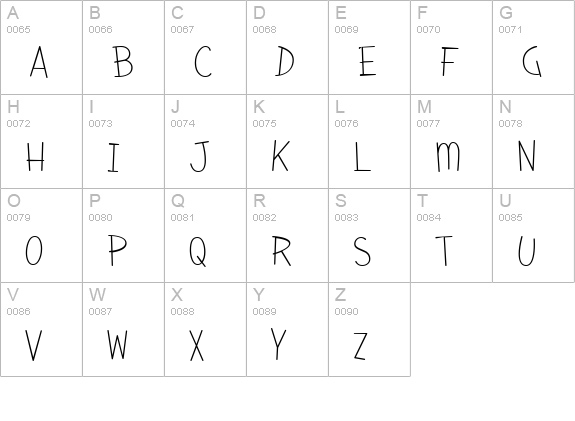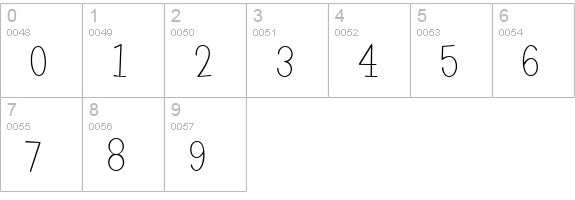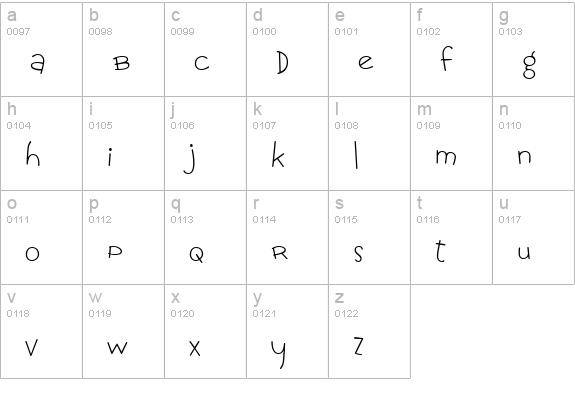
Crazy Girlz Brunette BTN Lt Font Details
Crazy Girlz Brunette BTN Lt font is a fun and quirky typeface that exudes personality and charm. With its playful design and whimsical strokes, this font is perfect for adding a touch of whimsy to your projects. Whether you're working on a poster, card, or invitation, Crazy Girlz Brunette BTN Lt will make your text stand out and grab attention. The best part? Crazy Girlz Brunette BTN Lt font is available for free download at FontsMarket.com. This means you can easily access this delightful font and use it in your designs without any hassle. So go ahead and give your projects a playful twist with Crazy Girlz Brunette BTN Lt font today!